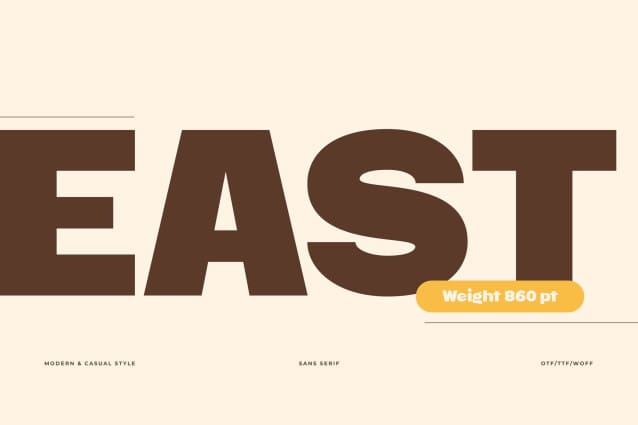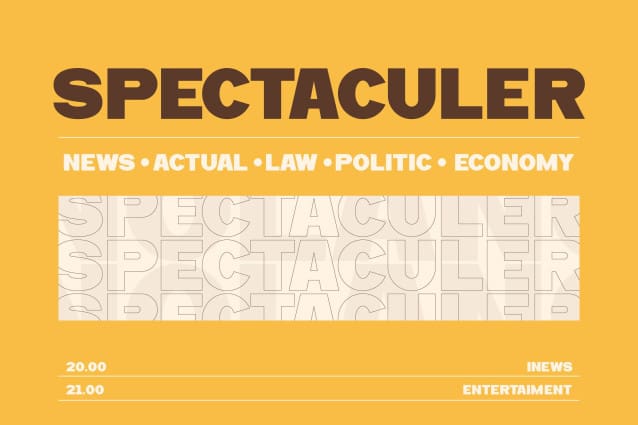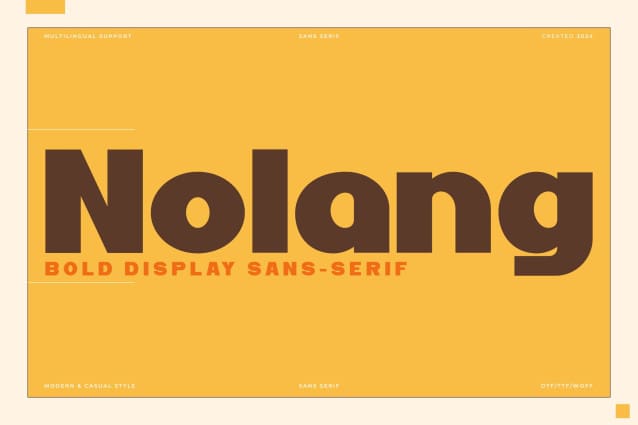
Nolang Font
Nolang Font | Bold Display Sans Serif, from Denustudios, suitable for any projects such as: logos, branding projects, homeware designs, product packaging, mugs, quotes, posters, shopping bags, t-shirts, book covers, name card, invitation cards, greeting cards, label, photography, watermark, special events, and all your other lovely projects that need a Bold Display Sans Serif taste.